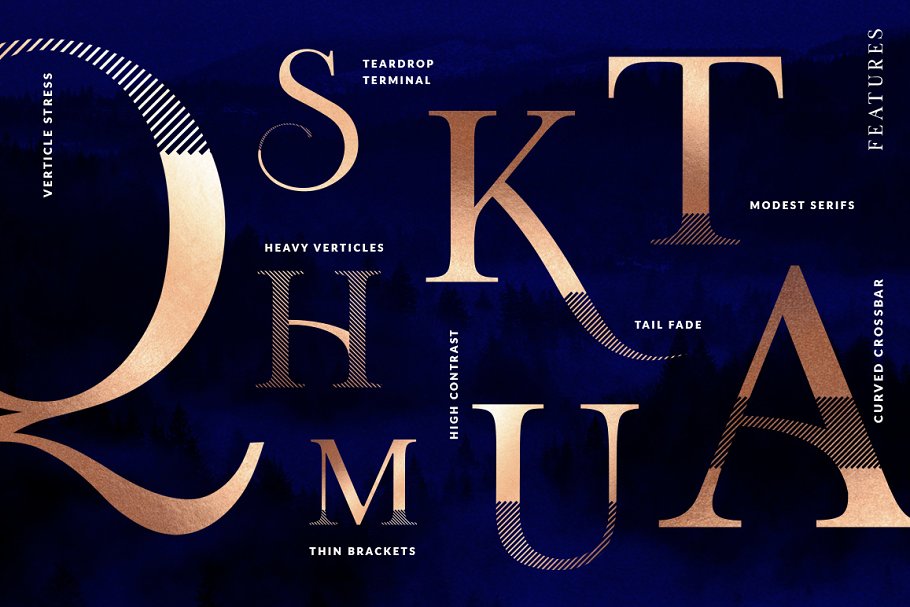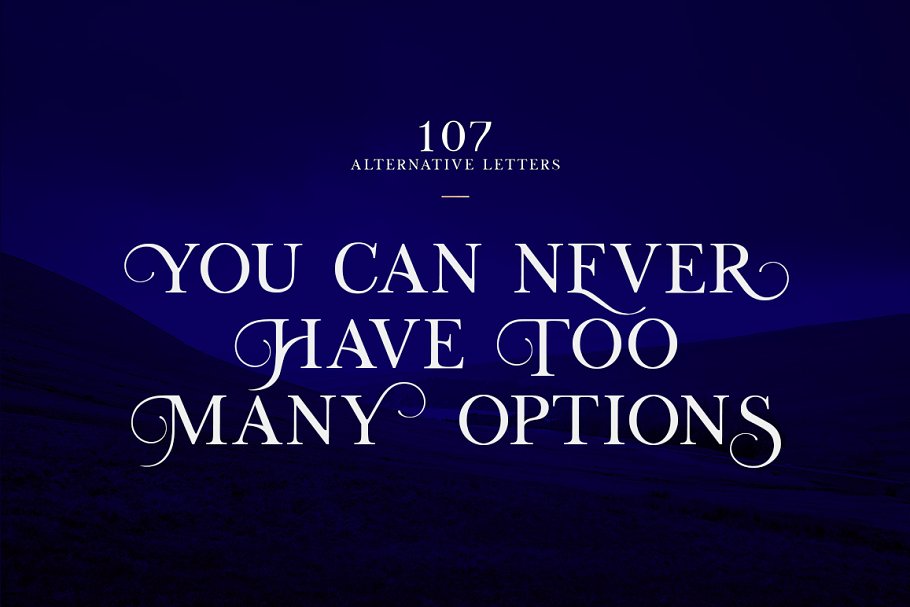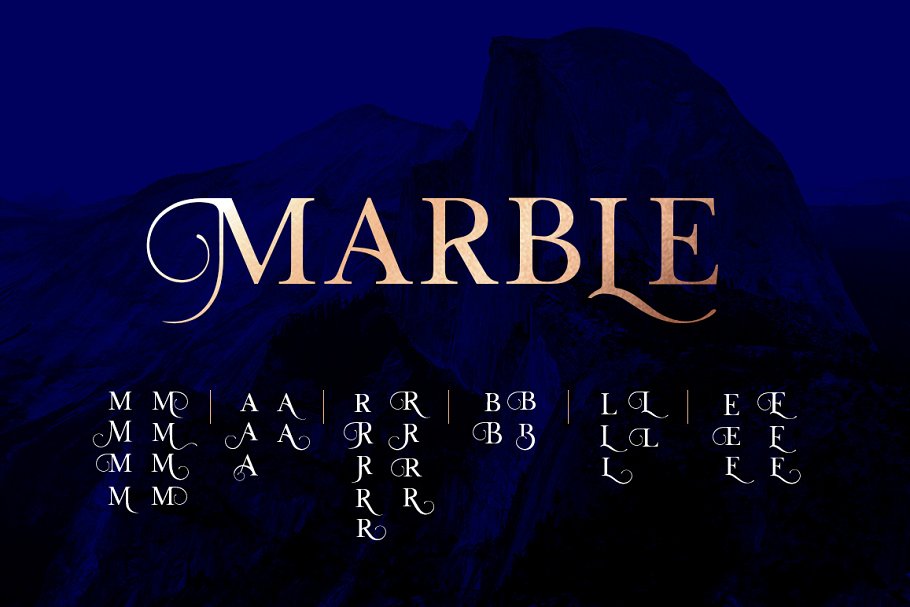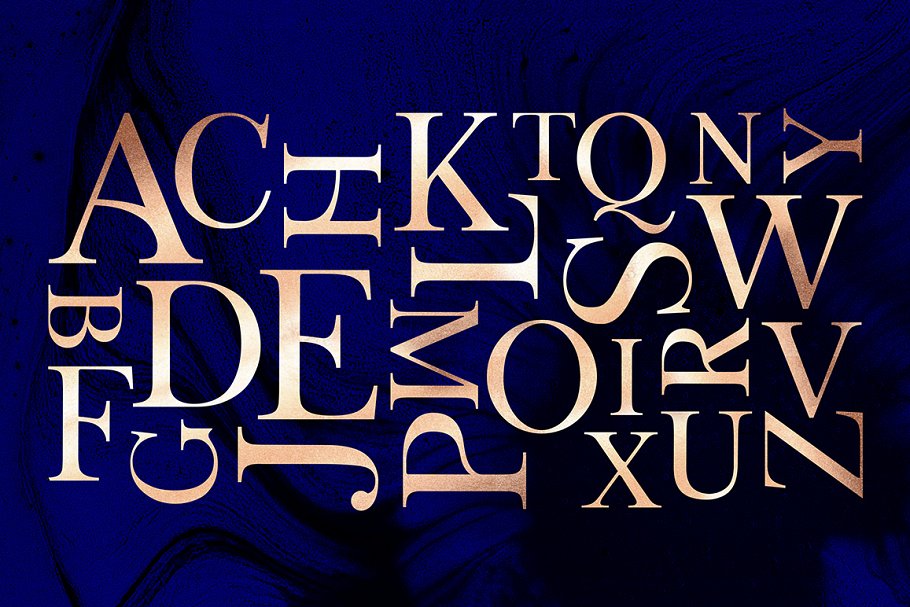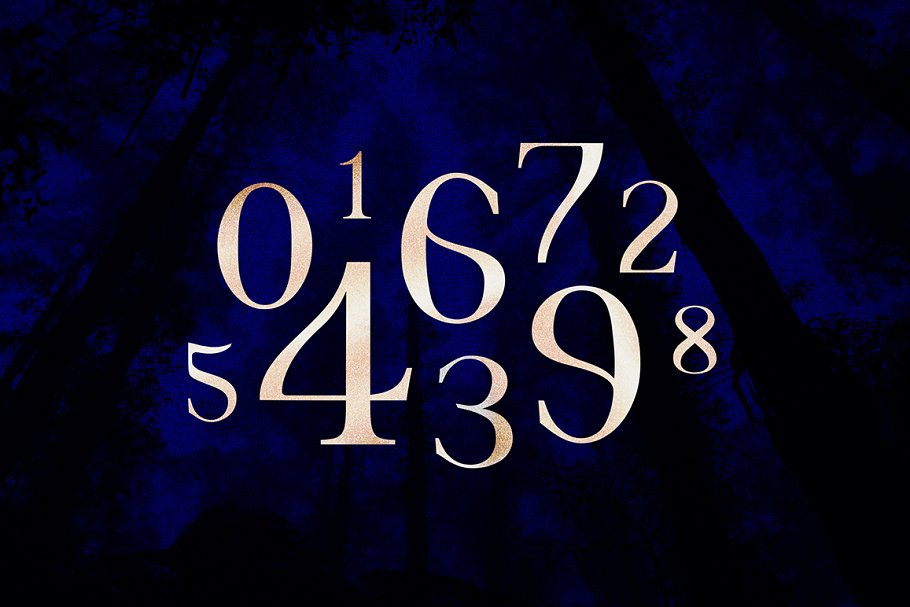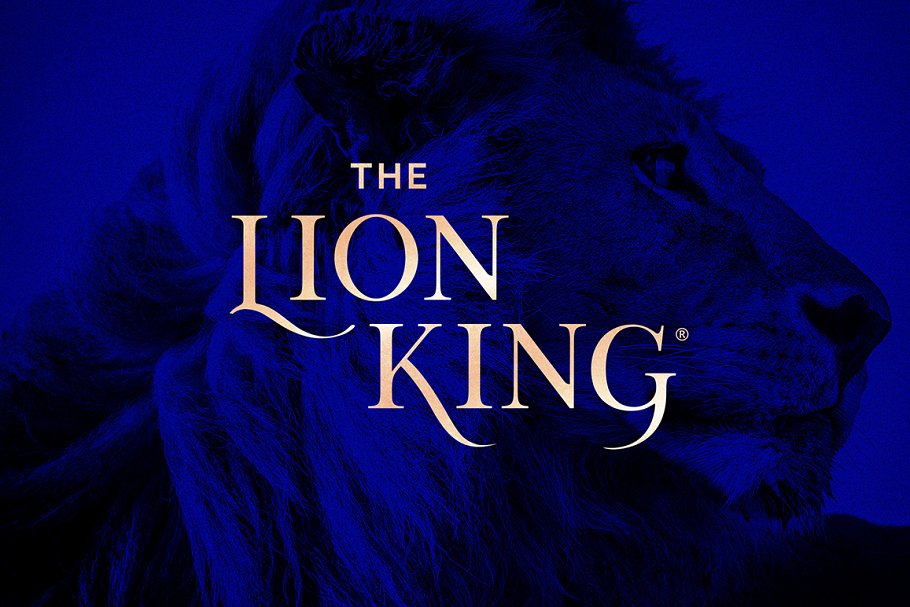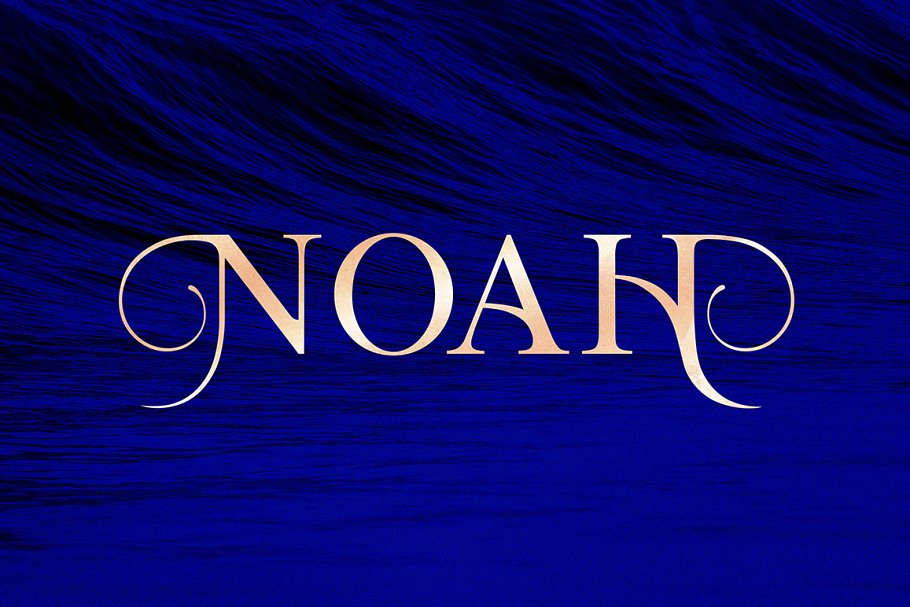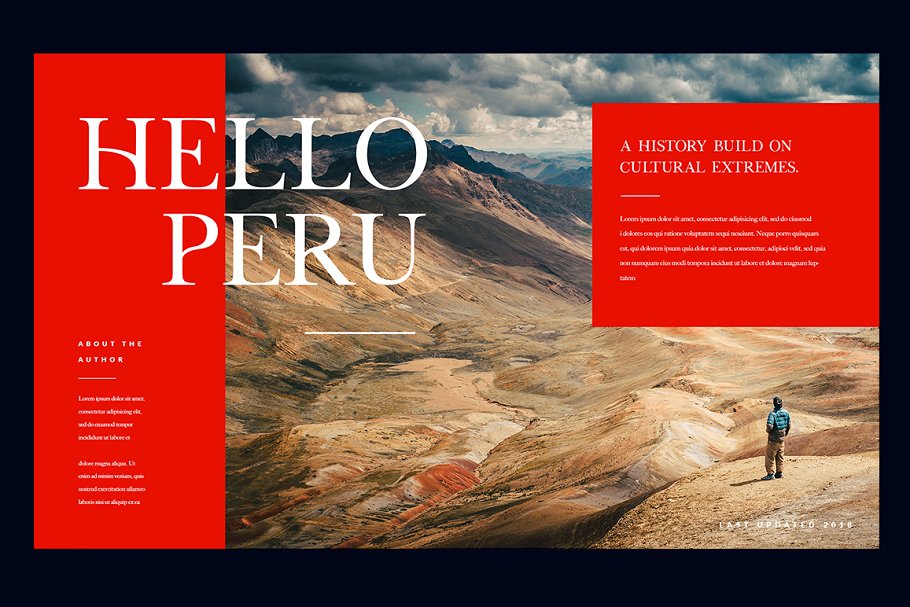
About the Lucy Rose Font
Lucy Rose is a typeface built with character, designed to be customised and explored, She is a joy to play with, offering all the benefits of custom typography without the price tag or difficult designer!She is a project of passion, Blood, sweat and tears have gone into creating this wonderfully expressive typeface, A hybrid of serif and display
It’s an all caps typeface, with strong and sleek letters, which create a brilliant foundation for the flourished alternatives to rest, The result is beautiful interlocking and totally unique designs, It features over 100 stylised alternatives, offering an infinite opportunity to customise and create logos, headlines and titling
It’s original form is elegant yet stately and is well suited to editorial, books, advertising, branding and packaging, – She is truly a designers dream!This font looks great paired with – Seravek and OswaldLucy Rose includes:All caps fontTall version108 stylistic alternativesAll punctuation and numbersForeign character supportI really hope you enjoy using it as much as I have!P